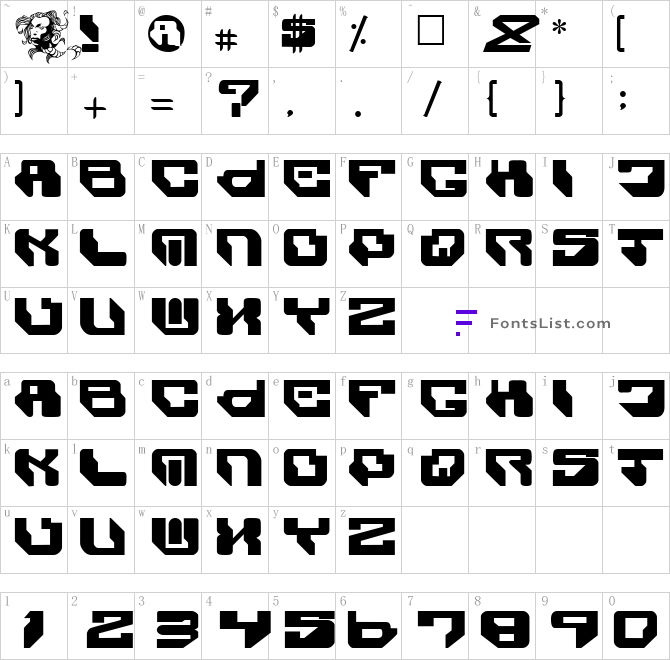
- Font Name:CaptivSystMRemiX
CaptivSystMRemiX.ttf is a very beautiful artistic font, CaptivSystMRemiX.ttf is widely used in the design and printing of various books and pictures,CaptivSystMRemiX.ttf has a strong visual impact,CaptivSystMRemiX.ttf is a commonly used font in newspapers, magazines and books, and is used in posters, e-commerce Poster design, store design, logo design, font design and other fields.CaptivSystMRemiX.